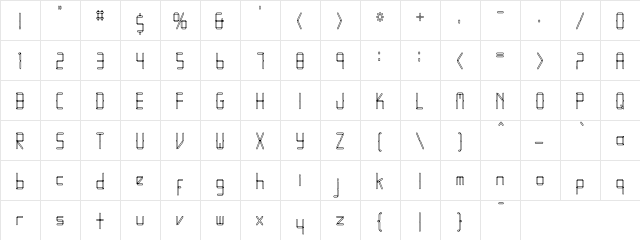
LEDFontHC Regular
Design Context for LEDFontHC Typeface
LEDFontHC takes a measured approach to typography — its balanced proportions and neutral character make it a reliable workhorse for both digital and print work.